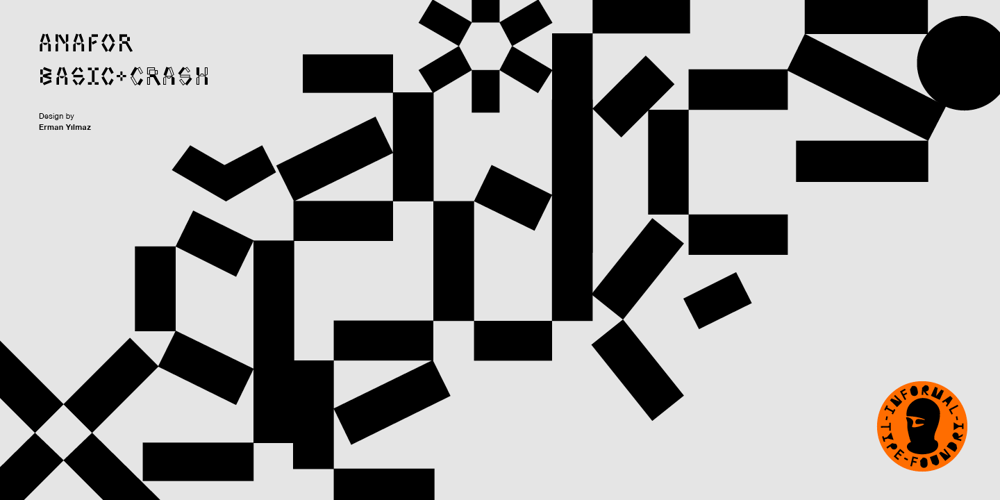
Anafor Font Family was designed by Erman Yilmaz and published by Informal Type. Anafor contains 1 styles and family package options. Construction period of Anafor deeply inspired by the pioneer of geometric abstract art and the creator of the avant-garde suprematist movement Kazimir Severinovic, Malevich’s suprematist compositions. Anafor typeface is separated from the basic Latin letters in terms of character and letter structure. Furthermore, The forms and main structure are designed together with alternatives by taking into account the relationships between the defined angles.Anafor contains certain aspects of a display typeface, due to the structure of the letter forms that are open to abstract connotations.Typeface family includes 2 styles; Anafor Basic and Anafor Crash. Each individual style has 235 glyphs and it has OpenType encoding. Due to the diversity of three styles, Anafor is providing a wide range of possibilities for the user.